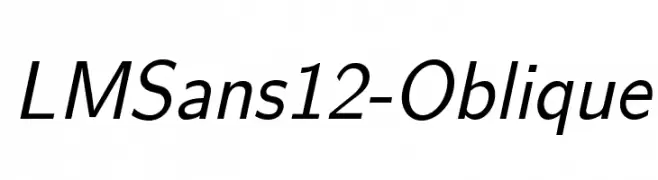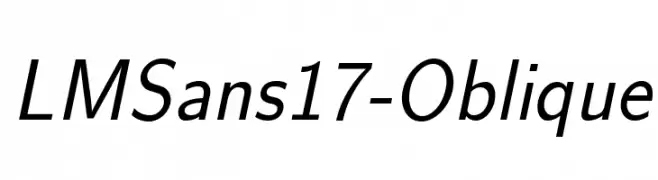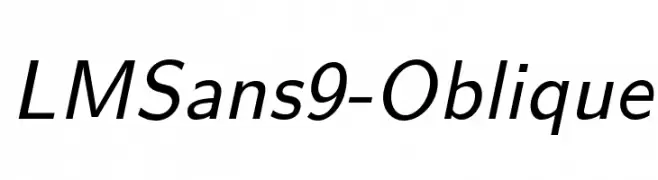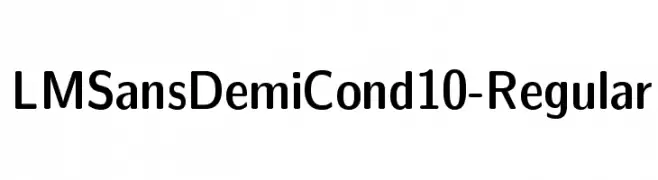
A modern, oblique sans-serif font with clean lines and a sleek appearance.
A clean, modern sans-serif font with consistent stroke width and excellent legibility.
A modern, oblique sans-serif font with a clean and professional look.
A modern, clean sans-serif font with excellent readability and balanced design.
A modern, oblique sans-serif font with clean lines and dynamic style.
A clean, modern sans-serif typeface with uniform stroke width and excellent readability.
A modern, oblique sans-serif font with clean lines and a dynamic appearance.
A modern, sans-serif typeface with clean lines and balanced proportions.
A modern, oblique sans-serif font with a clean and condensed design.
A modern, clean sans-serif font with a slightly condensed style.